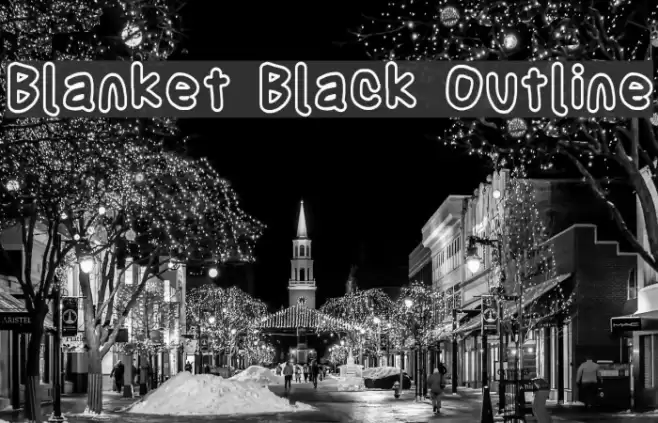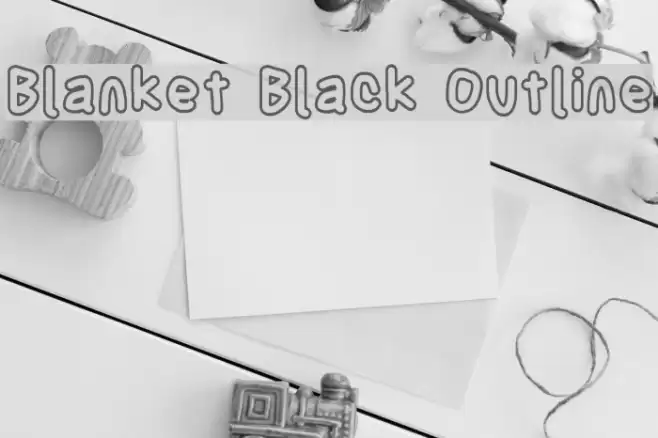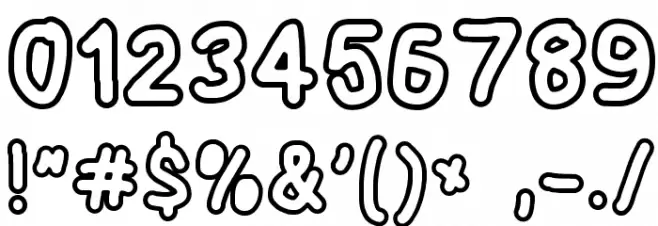
Blanket Black Outline Font
Blanket Black Outline Description
This playful and bold font features a unique outline style that gives it a distinctive, eye-catching appearance. The characters are rounded and slightly irregular, adding a whimsical and informal touch. The font maintains a consistent thickness throughout, with a medium contrast between the strokes and the outlines. Its design is approachable and friendly, making it suitable for creative and fun projects. The spacing between characters is normal, ensuring readability while maintaining its playful aesthetic.
A playful, bold outline font with rounded, whimsical characters from Uncategorized fonts.
- Proposed Projects: Ideal for children's books, playful branding, posters, and creative design projects.
- Overall Style: Playful